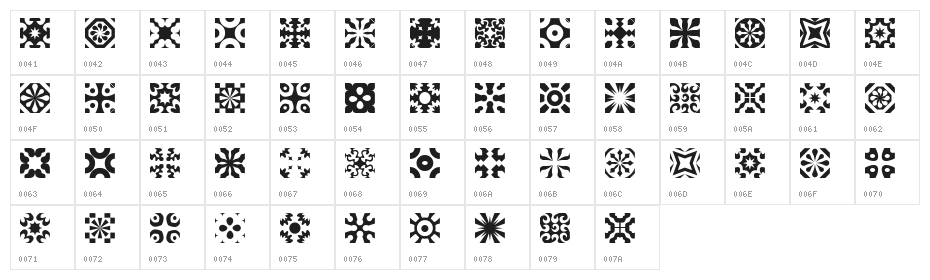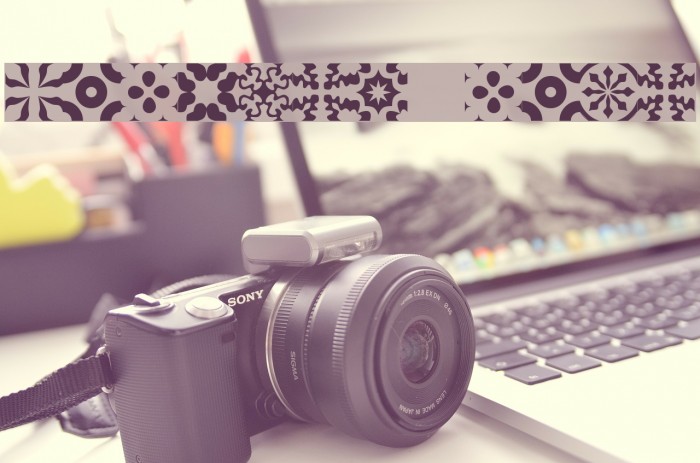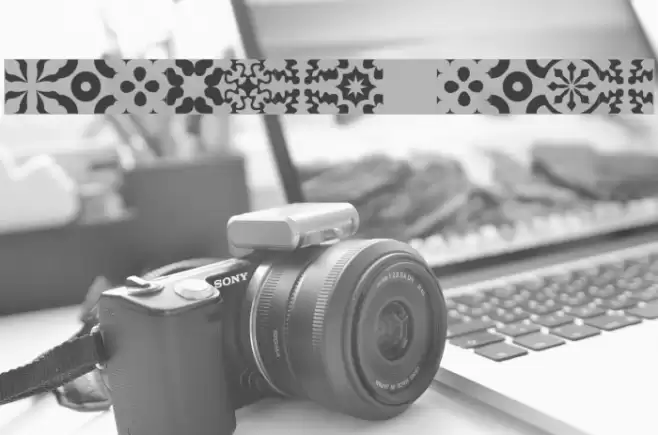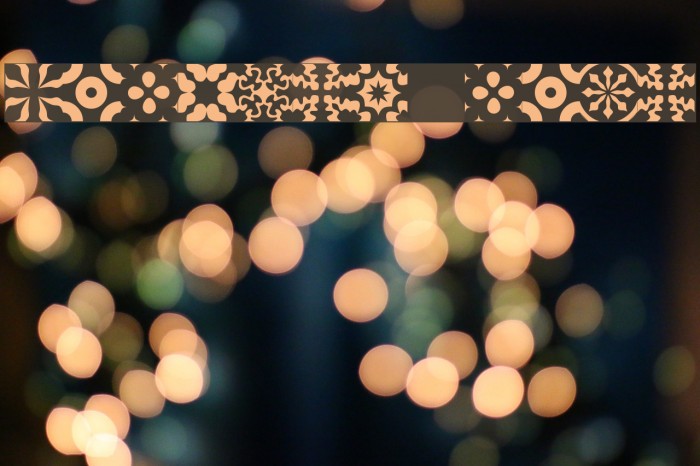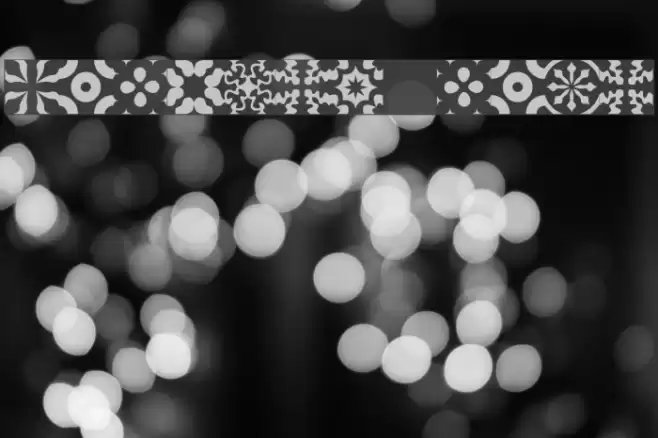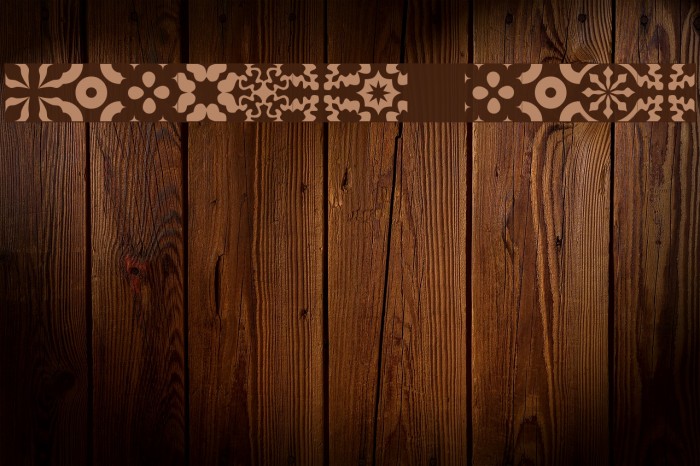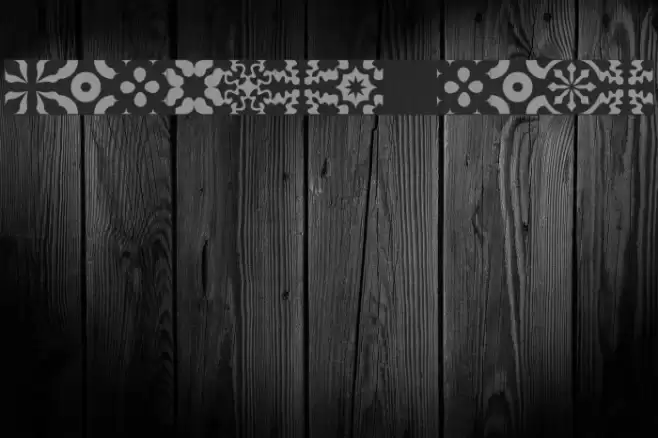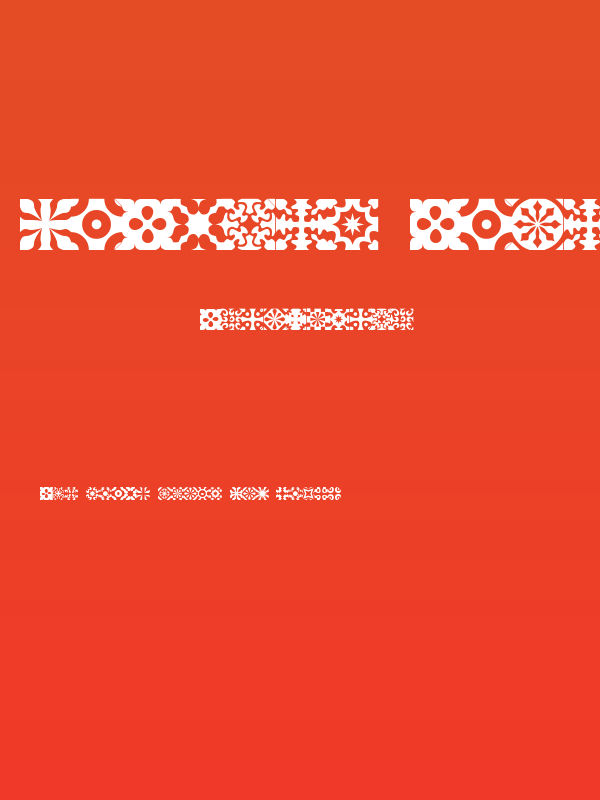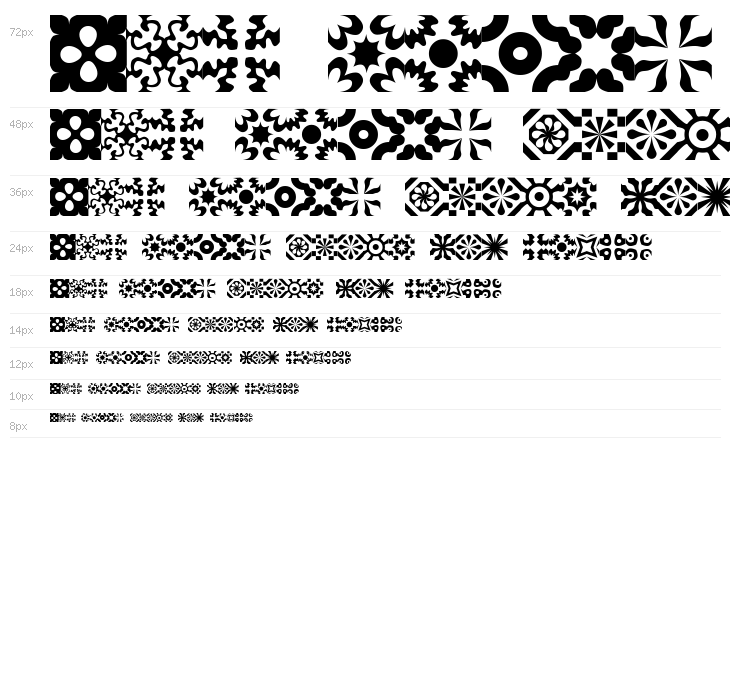
kitchen tile Font
kitchen tile Description
A decorative typeface featuring intricate, tile-inspired geometric patterns and motifs in place of standard alphanumeric characters, evoking the look of traditional kitchen or Mediterranean tiles. The glyphs are highly stylized and ornamental, with bold black-and-white contrast and symmetrical designs.
| Overall Style | Decorative, Vintage, Mediterranean |
| Use Case | Logos, Headlines, Decorative borders, Themed event materials |
| Proposed Projects | Branding for restaurants, packaging, decorative headings, posters, invitations, or any project seeking a Mediterranean or vintage tile aesthetic. |